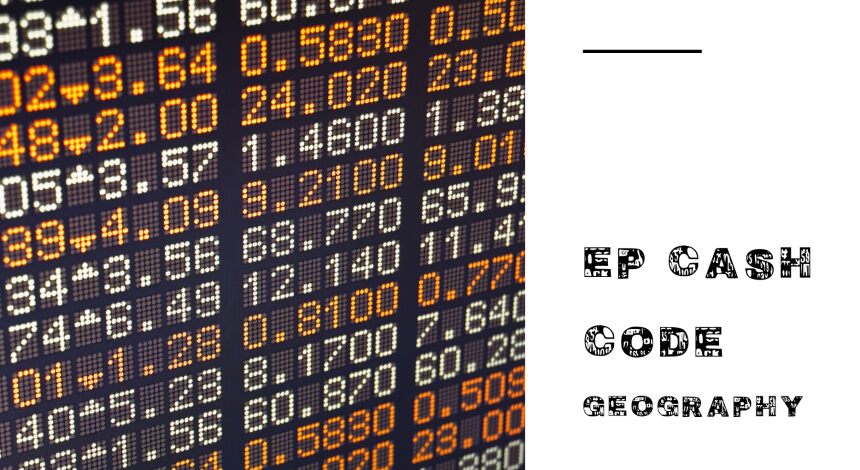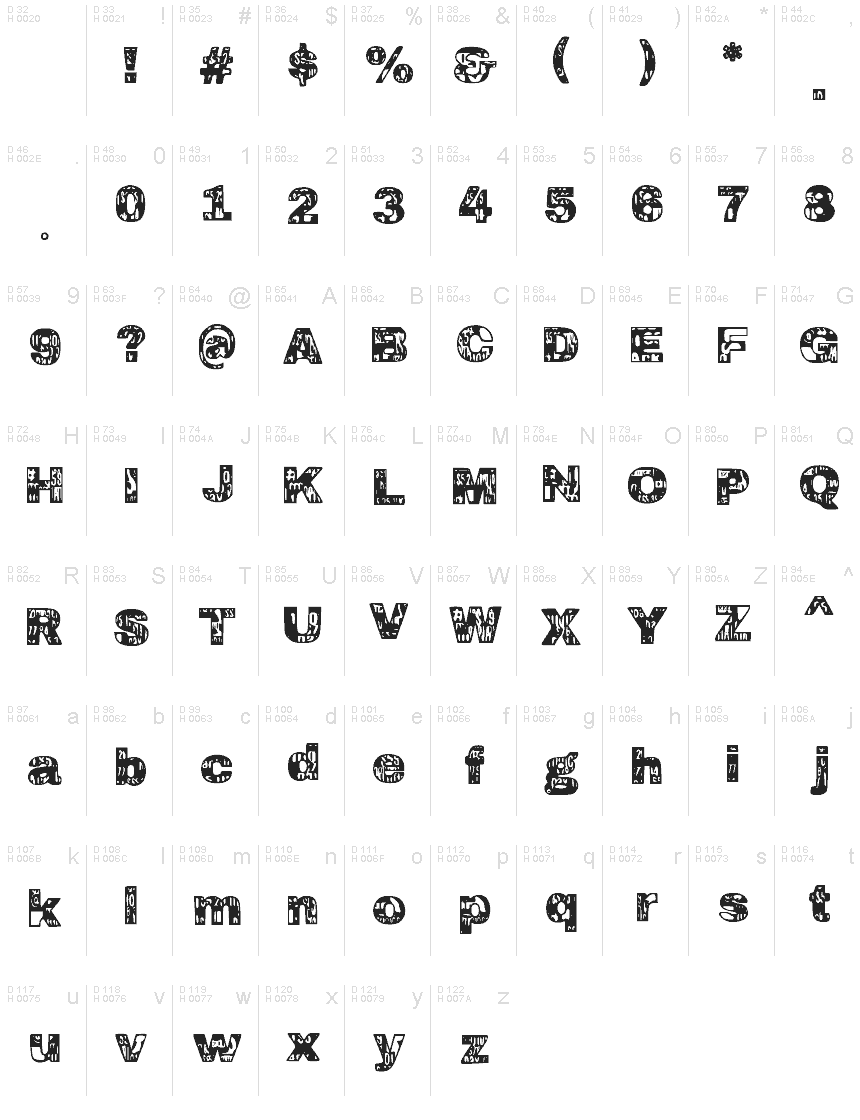
Ep Cash Code Geography Regular
Ep Cash Code Geography font presents a bold display font with futuristic geometric elements that are paired excellently with peculiar eroded effects. The technological aesthetic of the typeface raises its modern and contemporary appeal alongside a mysterious atmosphere every reader can sense.
Such an intricate presentation makes this webfont perfect for poster titles, artistic movie covers, branded packaging designs, show tickets or pamphlets, board games, event banners and invitations, appetizing restaurant menus and food packaging names.